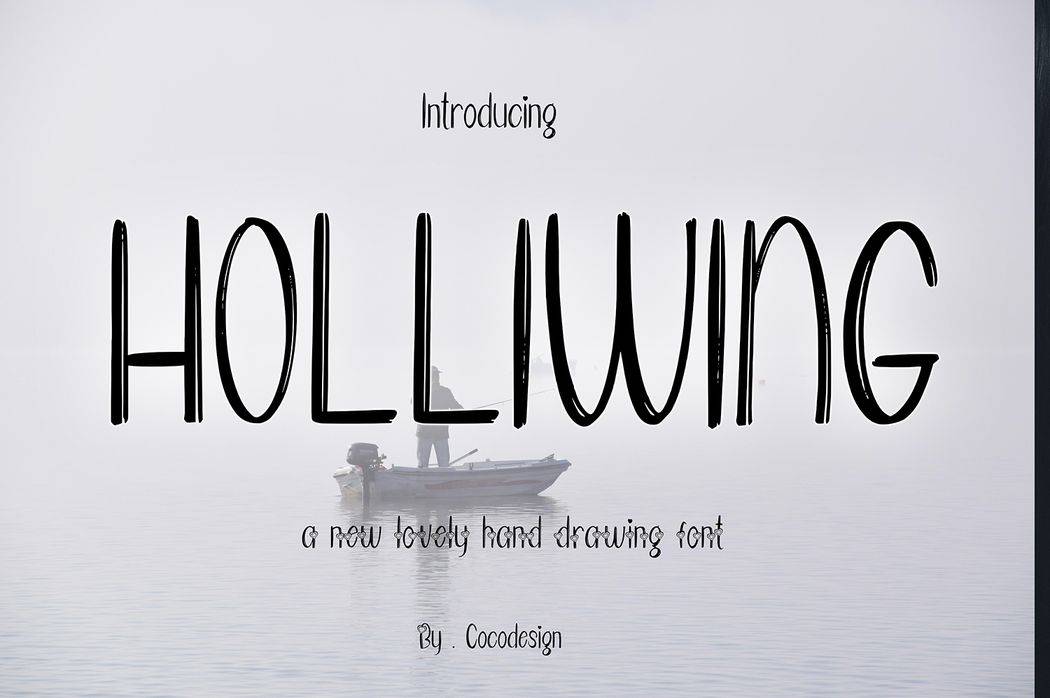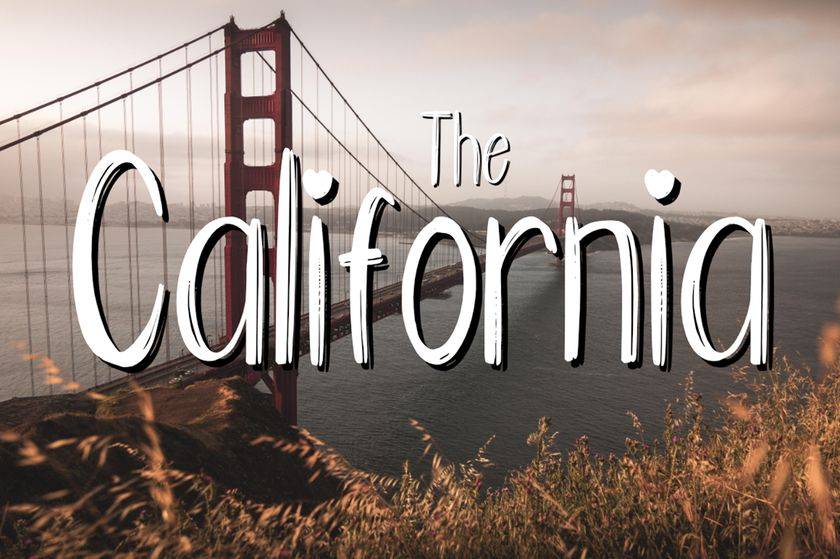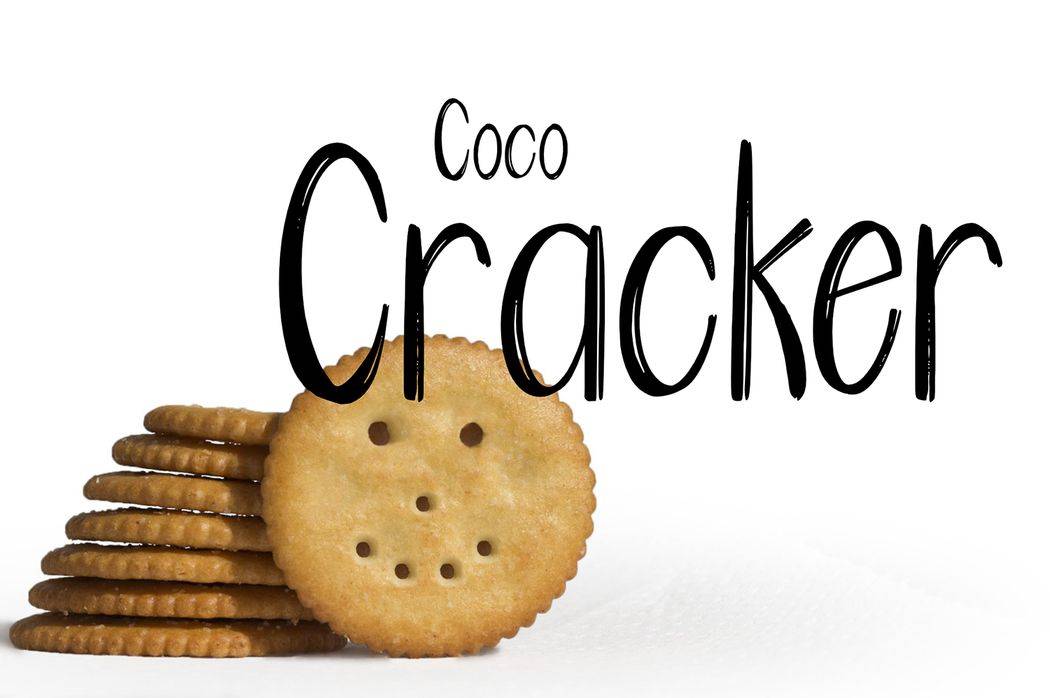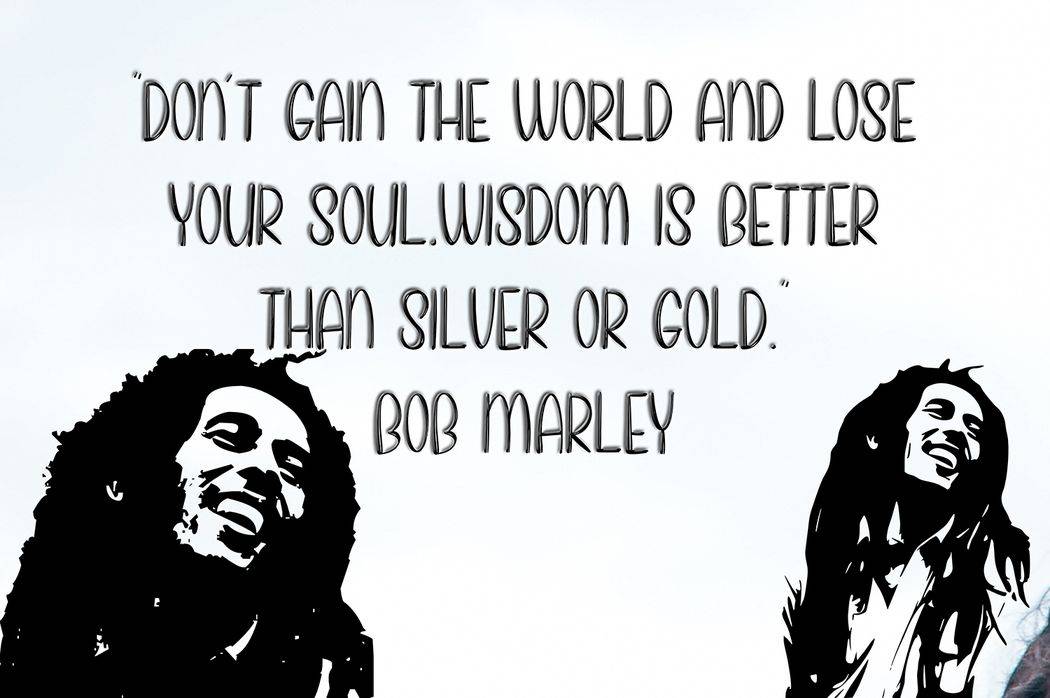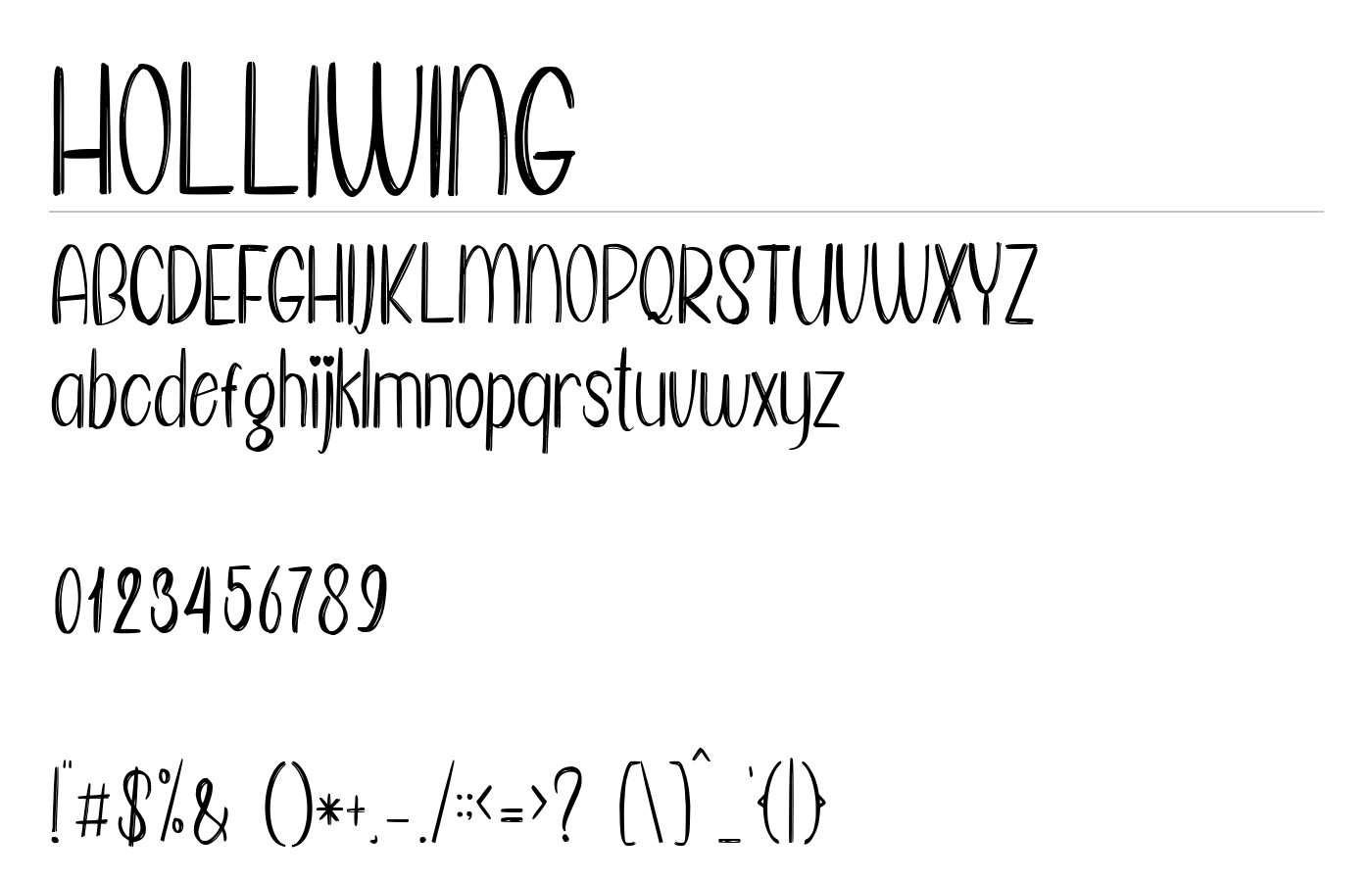
Holliwing is a playful and casual handwritten sans serif font with tall, thin letterforms that give it a light and airy feel. Its narrow width and irregular strokes add a quirky, friendly personality, making it perfect for creative projects, informal branding, and fun headlines. This font shines in designs that aim to convey approachability and originality, especially in invitations, posters, and lifestyle branding.
Holliwing Font
About Holliwing Font
| Font family | Holliwing Font |
| Designer | cocodesign |